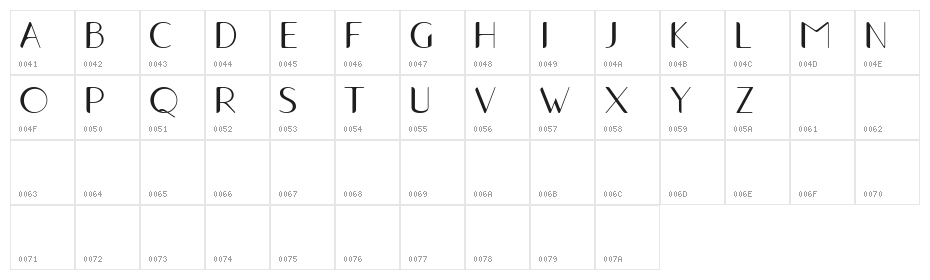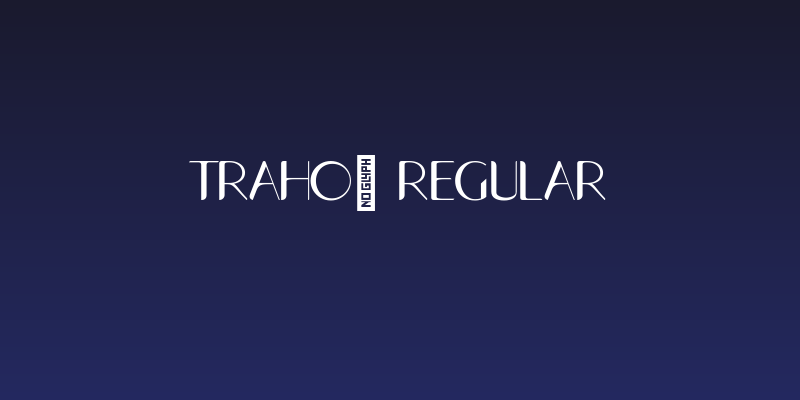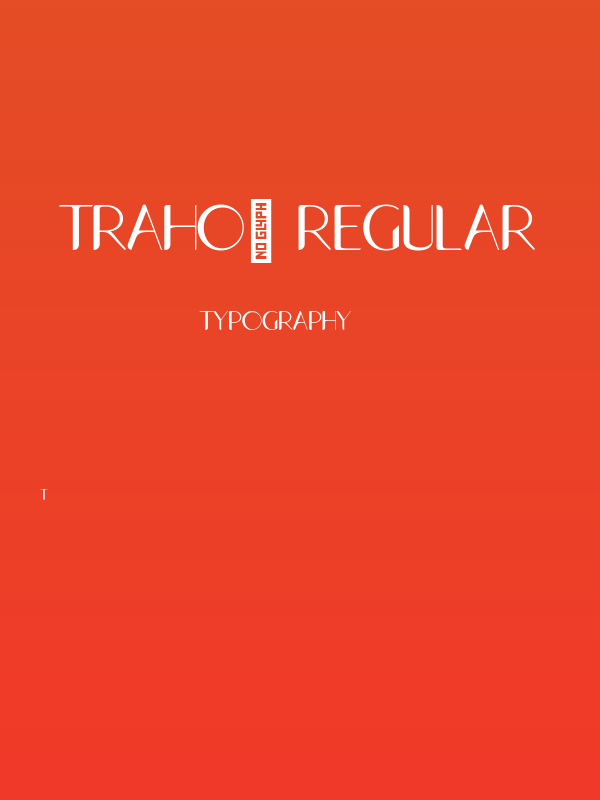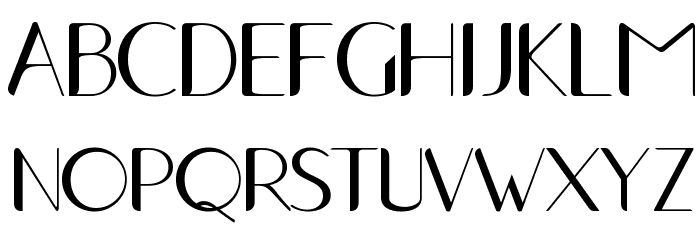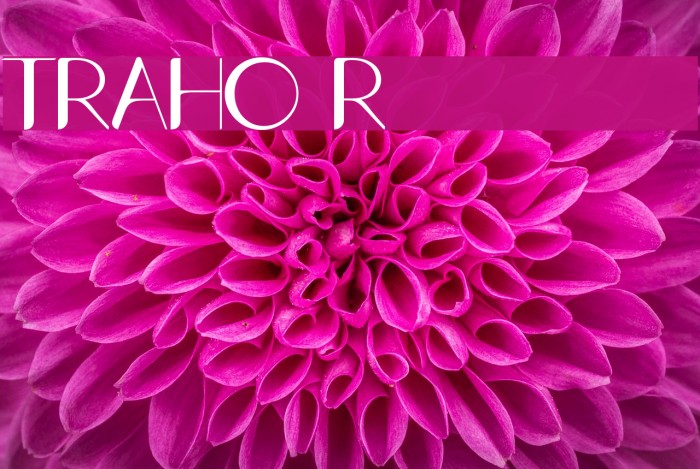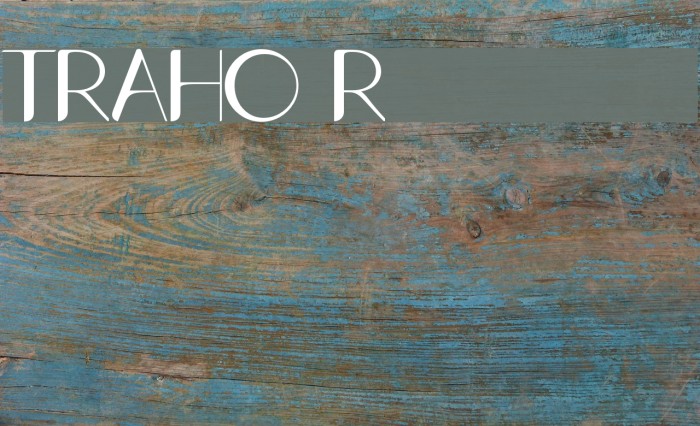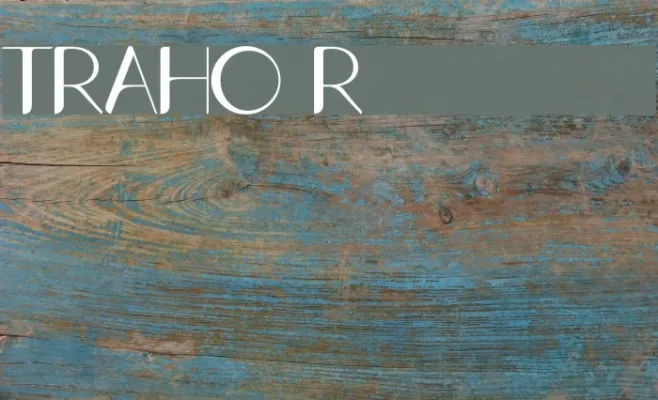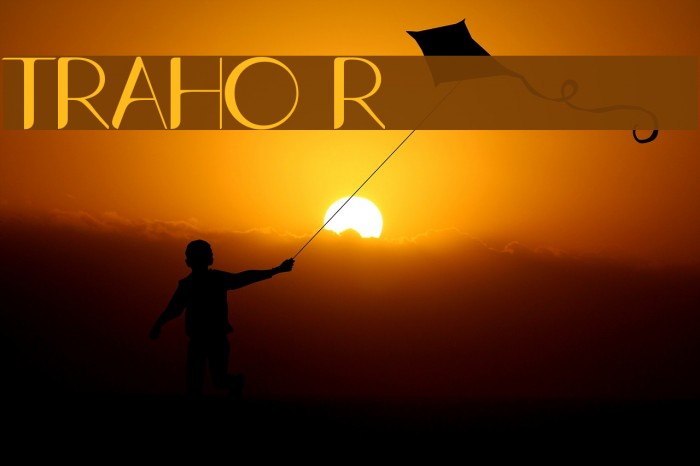
TRAHO2 Regular Font
TRAHO2 Regular Description
This font features a modern and stylish design with a unique blend of geometric and organic shapes. The uppercase letters exhibit a distinct elegance with their elongated forms and subtle curves, while the lowercase letters maintain a harmonious balance with slightly rounded edges. The numerals are crafted with a consistent style, ensuring readability and aesthetic appeal. Special characters are thoughtfully designed to complement the overall look, making this font versatile for various applications. The clean lines and sophisticated appearance make it suitable for contemporary design projects.